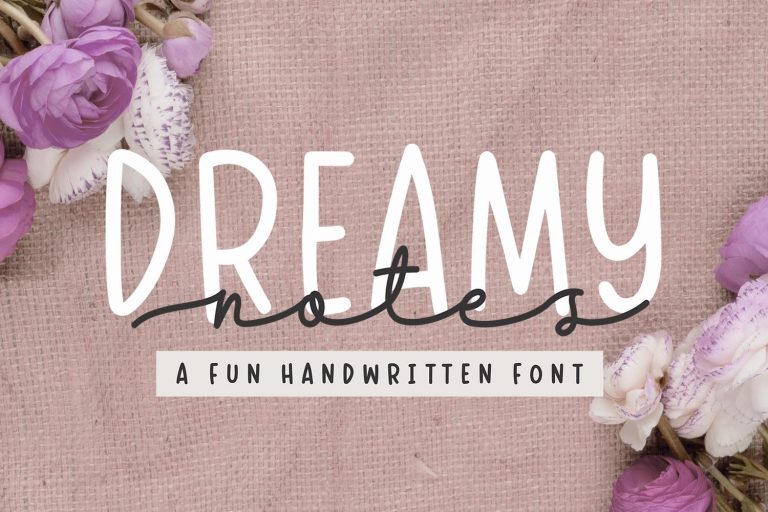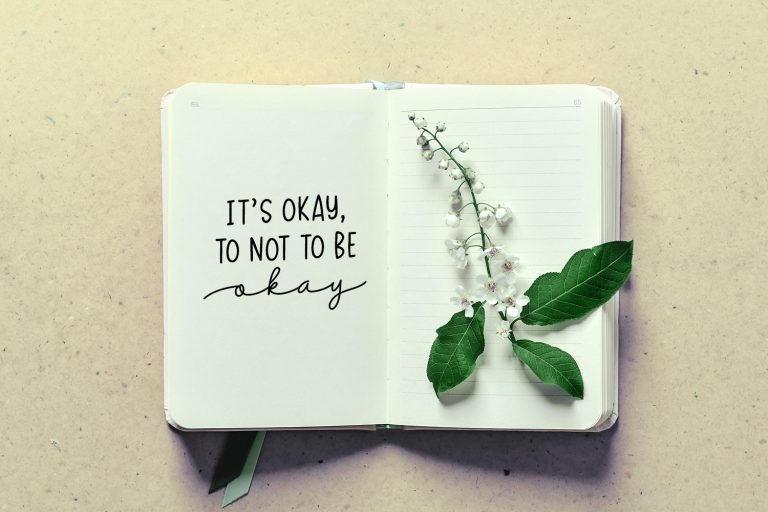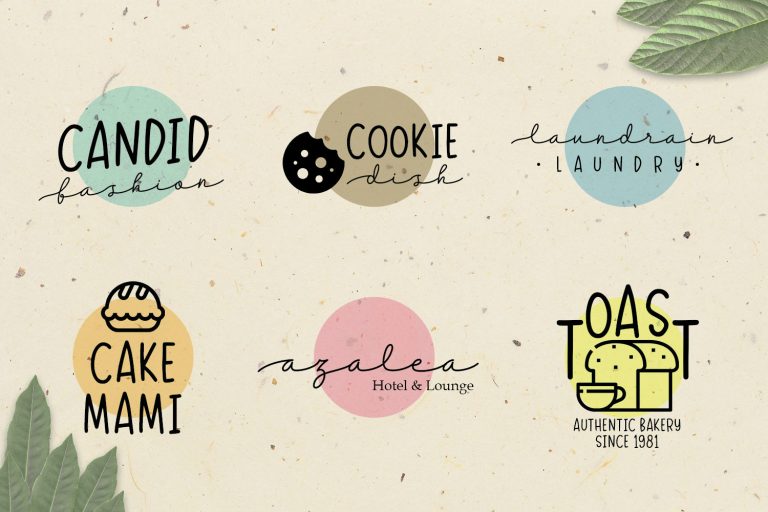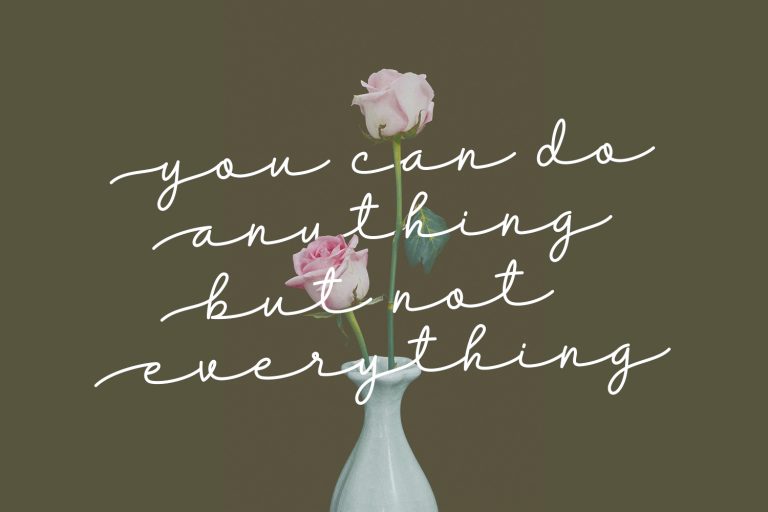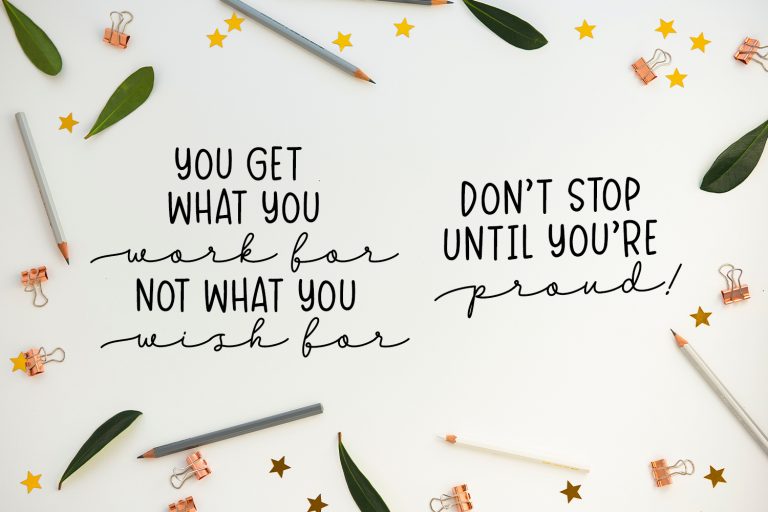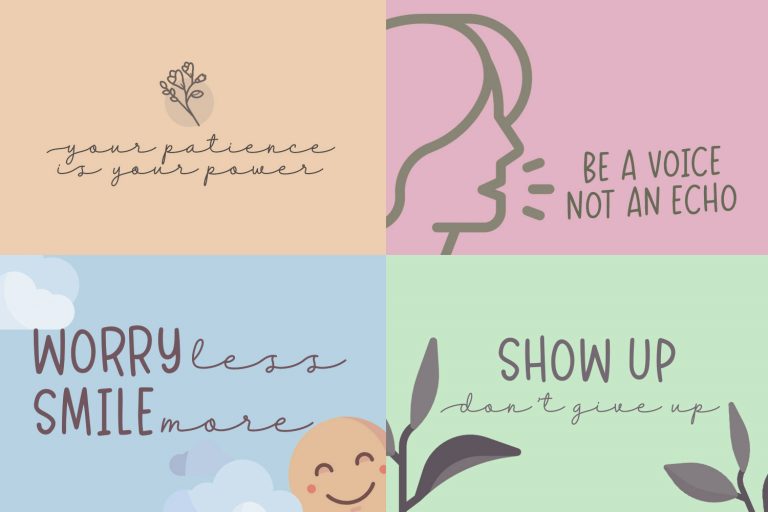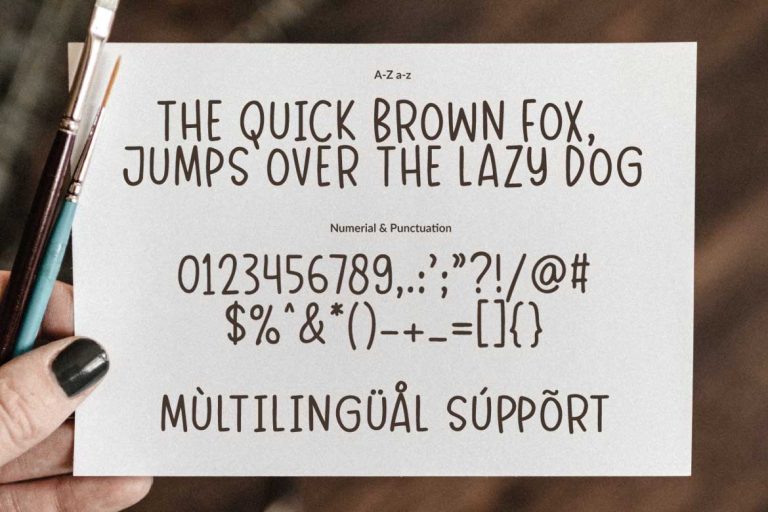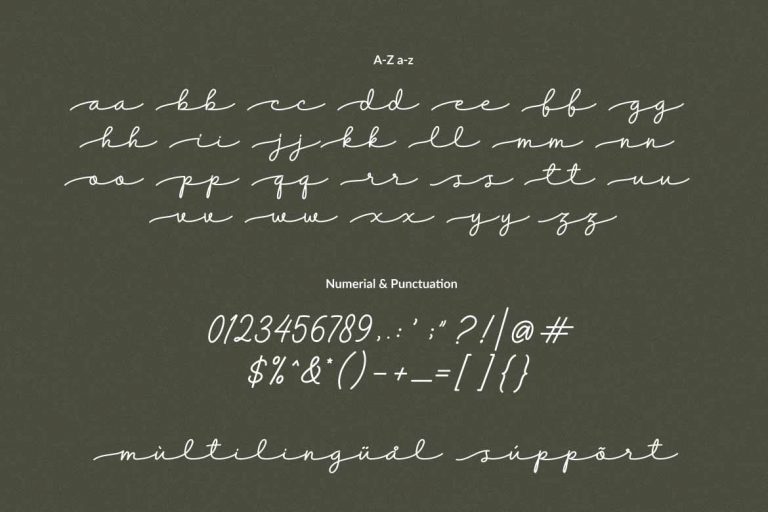
Dreamy Notes – Cute Font Duo
Dreamy Notes
The Dreamy Notes Duo is a stunning and comprehensive duo font (script and sans serif), ideal for giving your projects a
branded but friendly feel. The two included styles can be combined together perfectly but are also beautiful on their own.